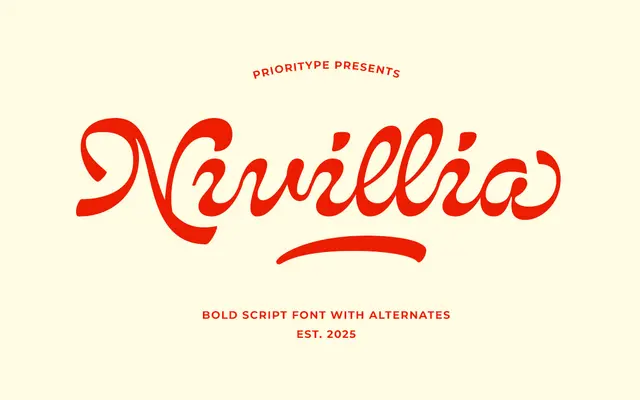
Nivillia – Bold Script Font
A bold connected script with flowing curves, aimed at logos, packaging and branding work across a wide range of Latin-script languages.
Nivillia is a single-weight bold script that leans on smooth, stylised letterforms suited to logotypes, invitations and product packaging. The font ships with alternates, ligatures and a discretionary underline system accessed via underscore combinations, giving designers some flexibility within a single style. Language coverage is broad, spanning over sixty Latin-script languages from Afrikaans to Zulu.
A bold connected script with smooth curves and flowing letterforms, typical of contemporary brush or pen-style script typefaces used in branding and logotype work.